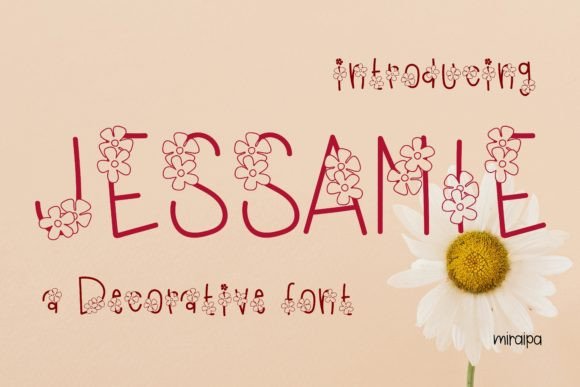
Welcome to the enchanting world of Jessamie Font, a decorative masterpiece crafted with love by the talented artisans at Miraipa. This beautiful font is more than just a collection of letters; it's a canvas for your creativity, a key to unlocking a world of whimsical possibilities.
Imagine your words blooming into life, each letter adorned with delicate flowers, bringing a touch of springtime charm to your projects. Jessamie Font is the perfect companion for handwritten notes, heartfelt letters, and any design that yearns for a feminine flair.
Its versatility knows no bounds, lending its charm to invitations, greeting cards, posters, and social media posts. With Jessamie Font, you'll captivate your audience and leave a lasting impression that whispers of warmth and whimsy.
Each stroke of Jessamie Font is a testament to the artistry that went into its creation. The gentle curves and elegant flourishes dance across the page, creating a symphony of visual delight. Whether you're writing a heartfelt letter to a loved one or designing a captivating poster, Jessamie Font will elevate your words and make them shine.
So, embrace the beauty of Jessamie Font and let your creativity blossom. Transform your projects into masterpieces, and let your words bloom with newfound charm. With Jessamie Font, the possibilities are as endless as your imagination.